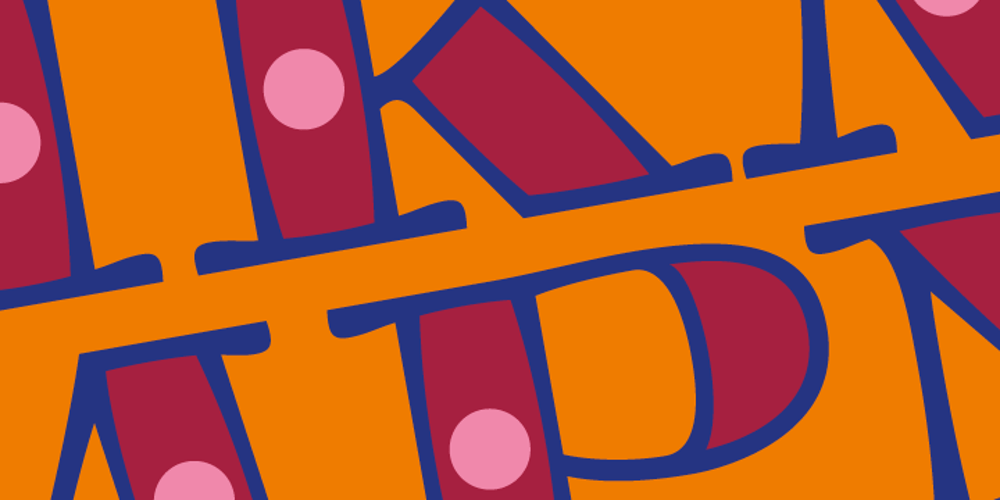
Aramara Chromatic Font Family was designed by Kristians Šics and published by Lamatas un Slazdi. Aramara Chromatic contains 6 styles and family package options. Display typeface “Aramara Chromatic” draws its name from the colony Palmar de Aramara in Puerto Vallarta, Jalisco where people are fond of bright and basic colours. It is a typeface that consists of several font files differently colored and layered one on top of another.